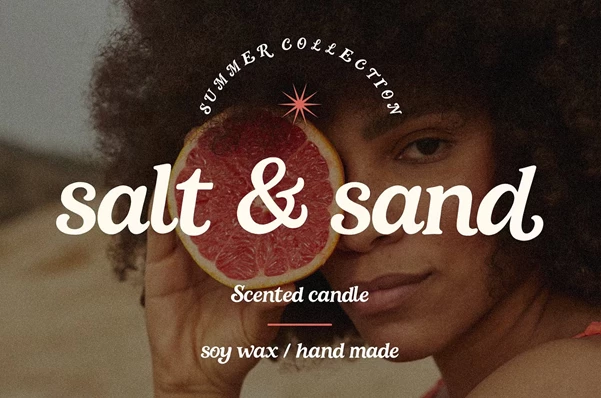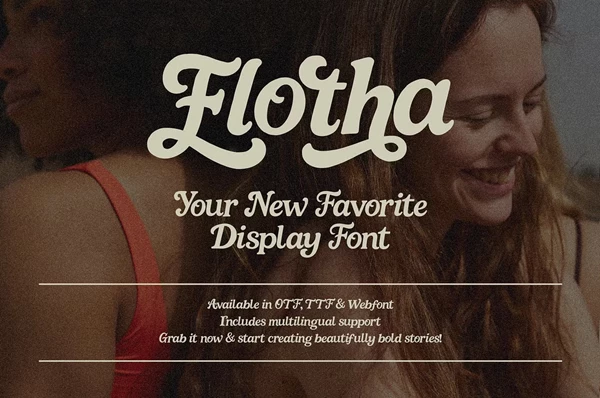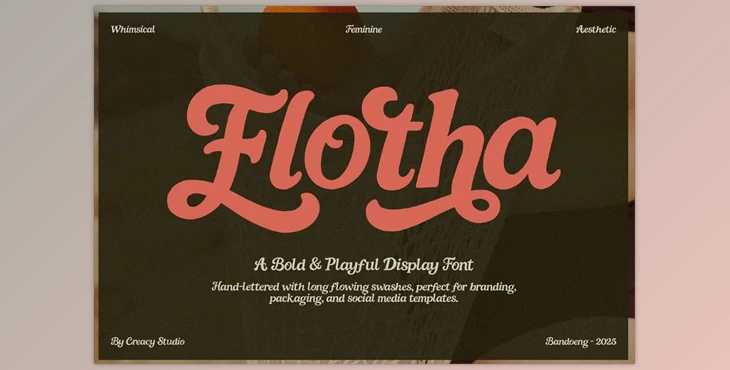
Flotha Bold & Playful Display Font:
Flotha is a lively, energetic display font pennned to add a twist of fun and creativity into many projects. With each letter uniquely formed from a brush pen, it is truly one of a kind, which makes it ideal for branding, instagram templates, wedding stationary, as well as packing design. The font has a wide versatility, and it offers a complete set of characters that contain upper case and lower case letters, numbers, punctuation, and even support for several languages. However, what makes the Flotha special are stunning ligatures and alternate characters like with graceful long tail, which brings another level of class and style to your designs.
Some great features of Flotha Bold & Playful Display Font:
- Comprehensive character set: uppercase and lowercase A-Z,
- Full range of numbers and punctuation.
- Over 20 fashionable ligatures_ for better creativity and design flow.
- Alternate letters with long decorative swashes.
- Support numerous languages, giving access to more users with diverse language access.
- Best suited for creating engaging social media templates.Designing unique branding and logos.
- Fashioning wedding and event stationery of the highest standard.
- Beautifying the presentation of journaling and quotes.
- Crafting unique styles of product packaging.